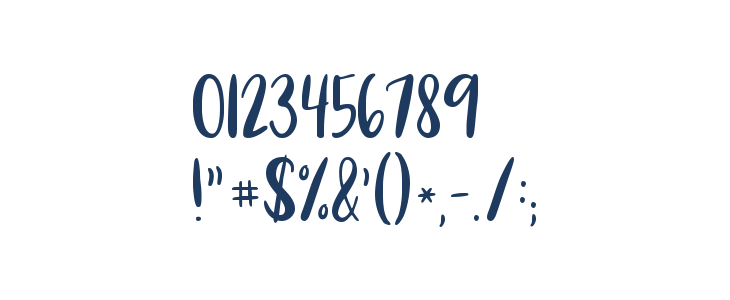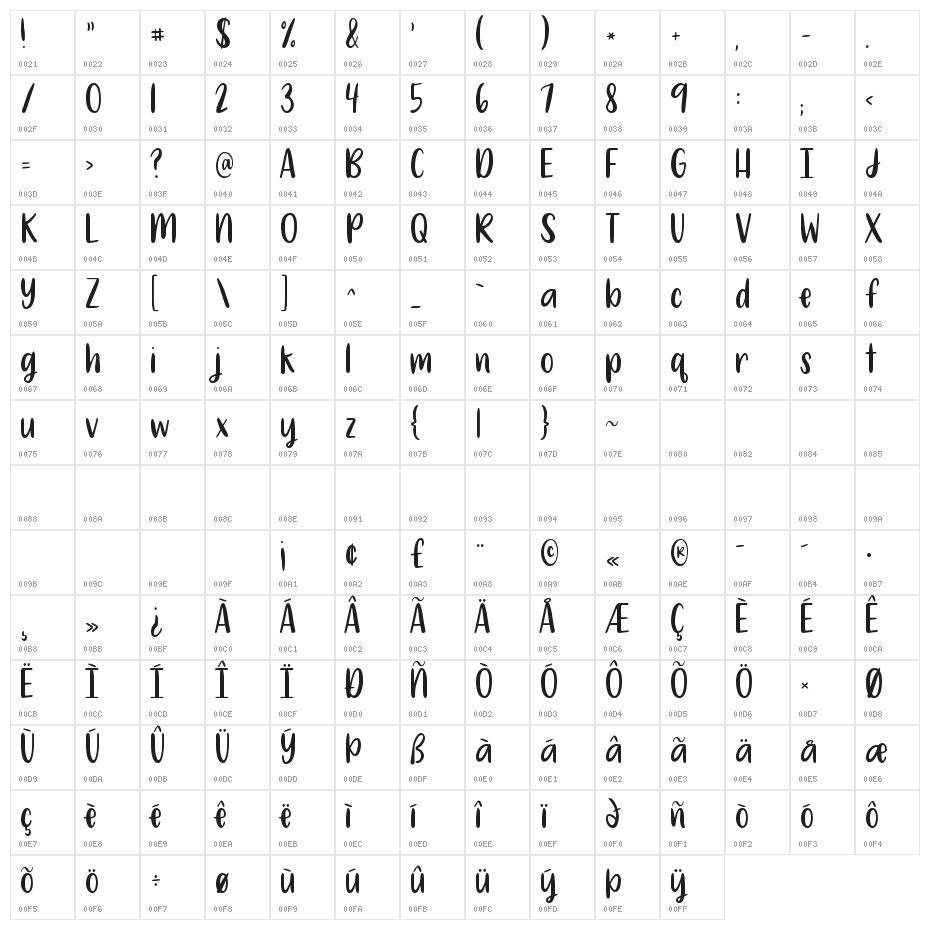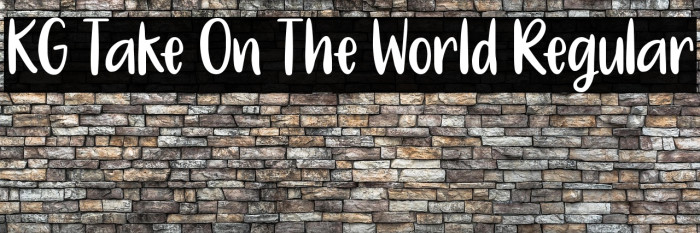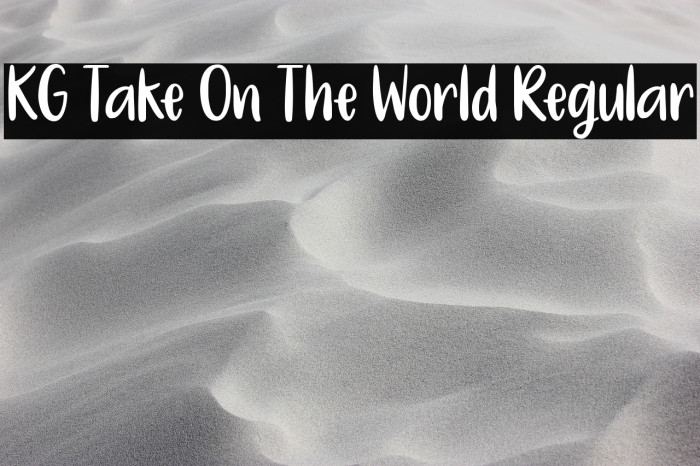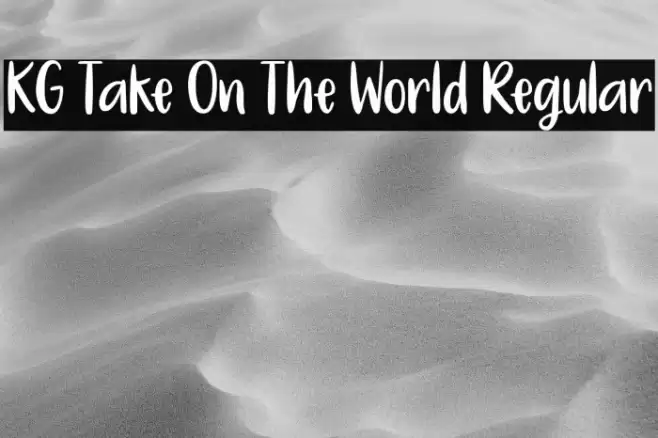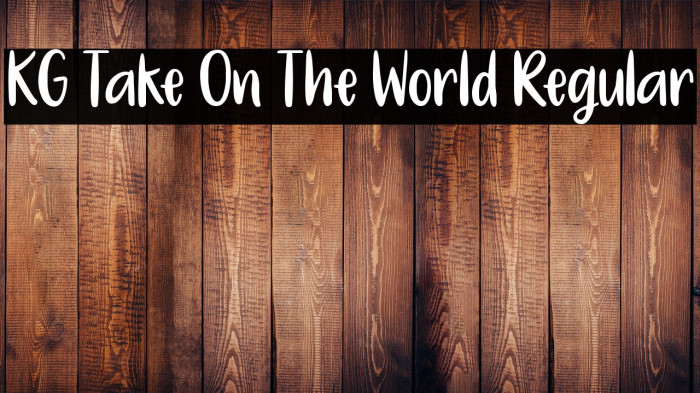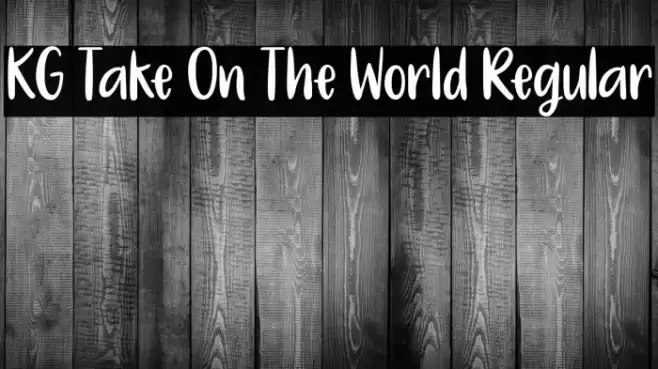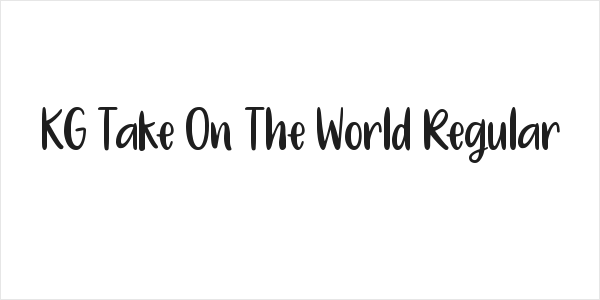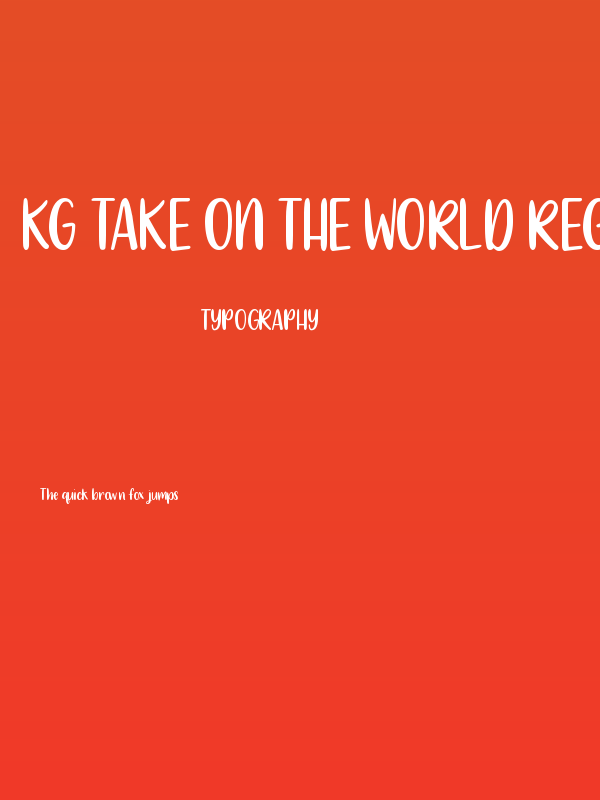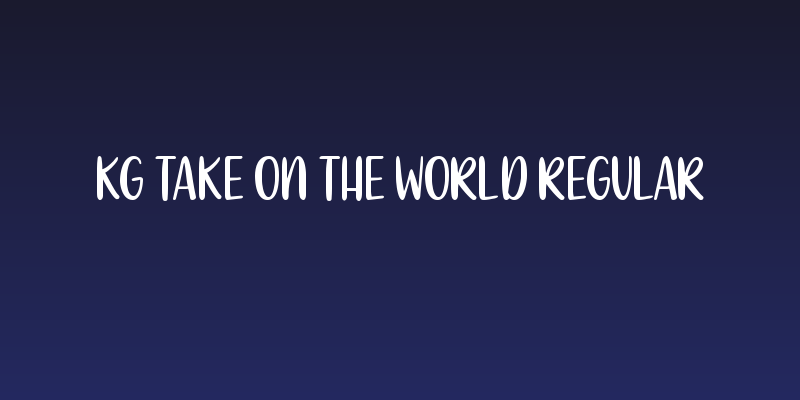
KG Take On The World Regular Font
This playful and energetic font features a handwritten style with a casual and friendly appearance. The letters are bold and slightly rounded, giving them a warm and inviting feel. The strokes are smooth and consistent, with a slight slant that adds a dynamic touch. The uppercase and lowercase letters maintain a cohesive style, while the numerals and special characters complement the overall design. This font's lively and approachable character makes it suitable for a variety of creative projects.
| Use Case | Headlines, Logos, Social media graphics |
| Proposed Projects | Ideal for greeting cards, children's books, playful branding, and social media graphics. |